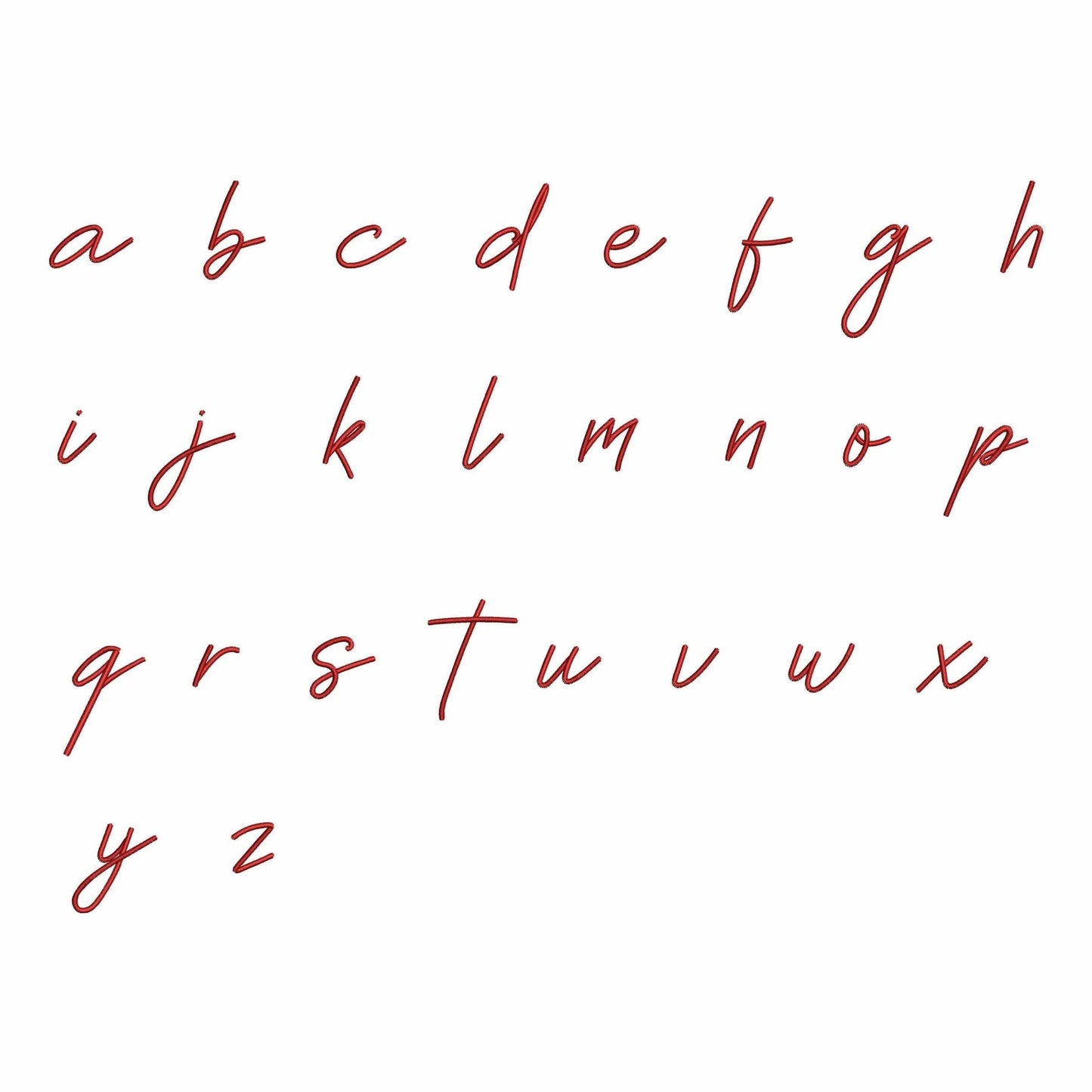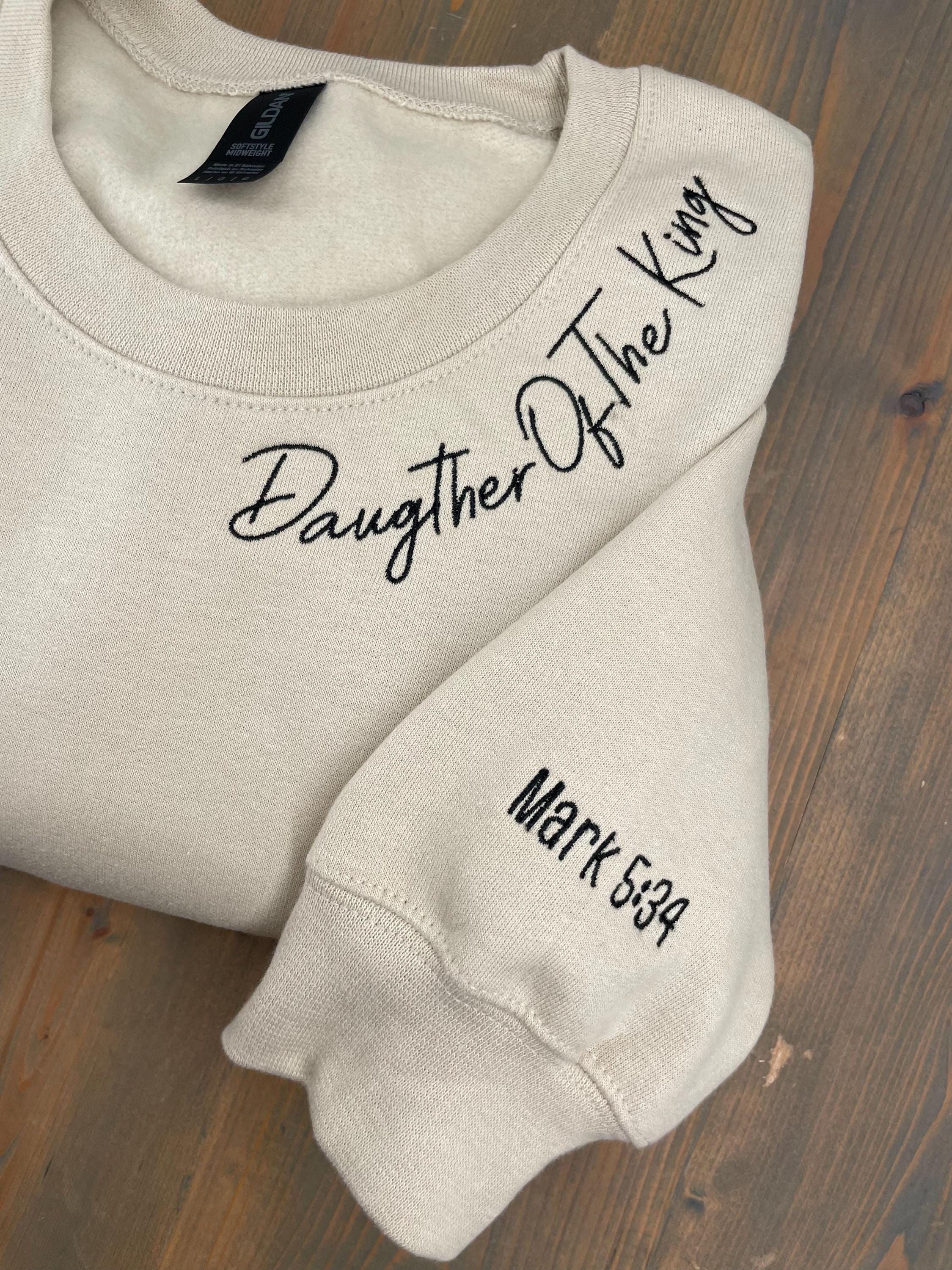
Daisy - Boho embroidery font
This machine embroidery font works well for shirts, tote bags, towels, gifts, and boho-style personalized embroidery.
A strong choice for makers who want soft decorative lettering for feminine gifts and custom everyday projects.